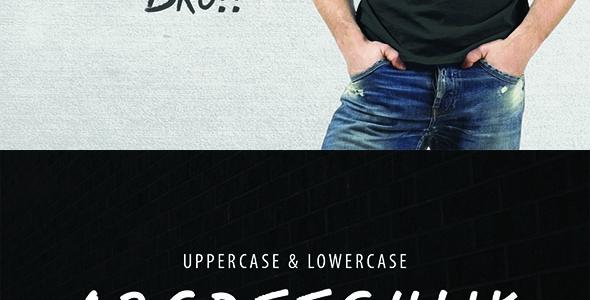
Aeron Typeface
Aeron Typeface Font
Font unique brush stroke that is suitable for the project design t-shirts, posters, logos, and professional design of your project.
Aeron font typeface has upper and lowercase characters, numerlals, supporty symbols you support international languages.